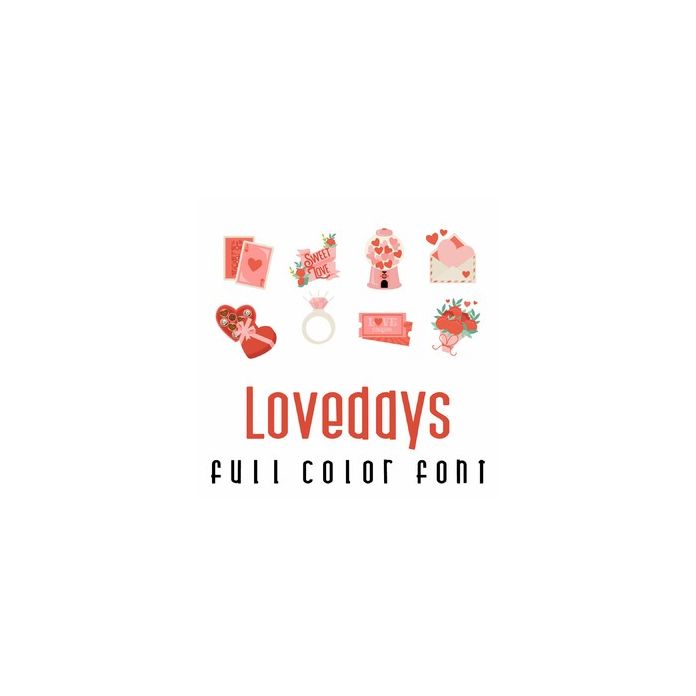
This adorable full-color doodlebat font features 26 love themed images perfect for Valentine's, Anniversaries and more! Use this beautiful doodlebat to create fun gifts, cards, decor, scrapbook pages, planner stickers and more!